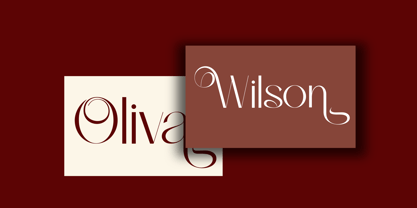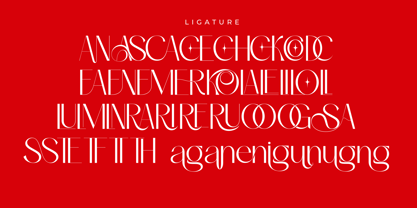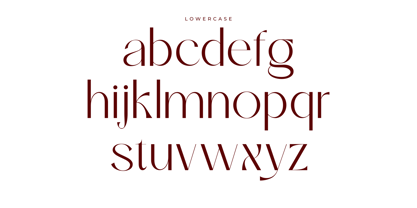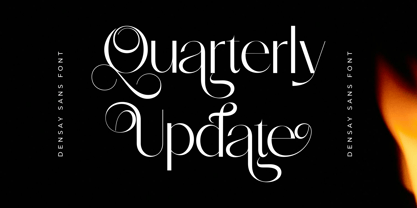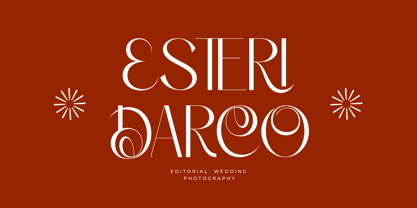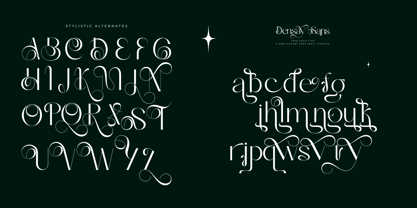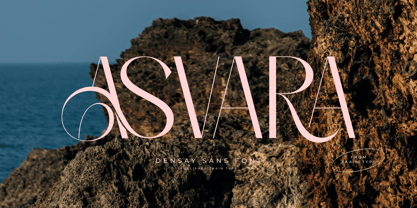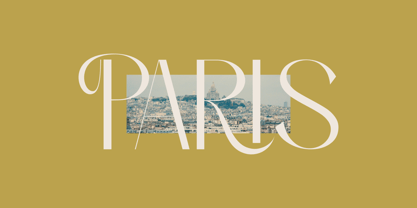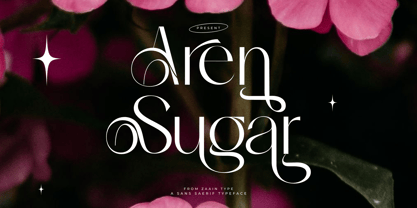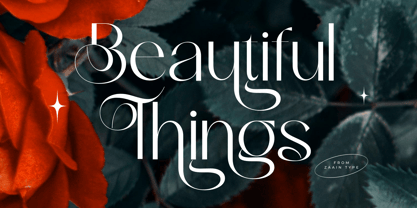
Aren Sugar
by Zaain Type
The Aren Sugar Font Family was designed by Ju Naen and published by Zaain Type. Aren Sugar contains 2 styles and family package options.
Aren Sugar is a soft and elegant sans serif with clean, delicate lines. Available in Regular and Oblique, it’s perfect for minimalist branding, modern editorials, and graceful typography